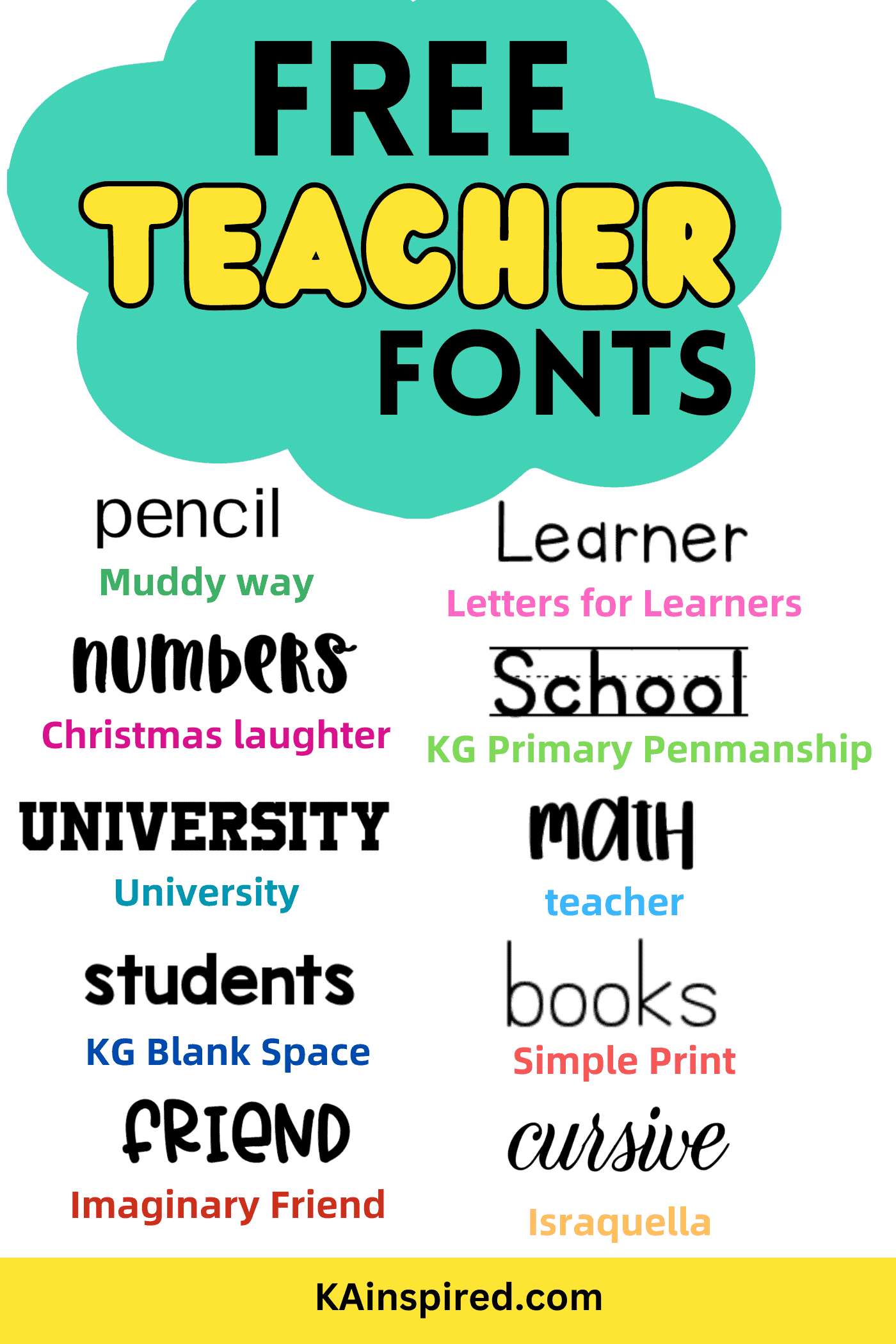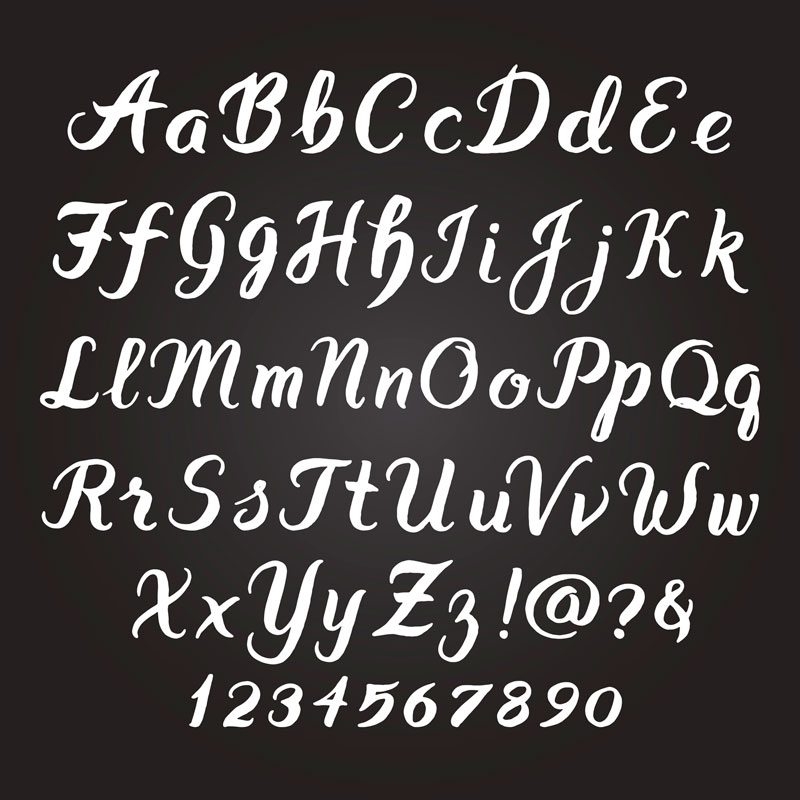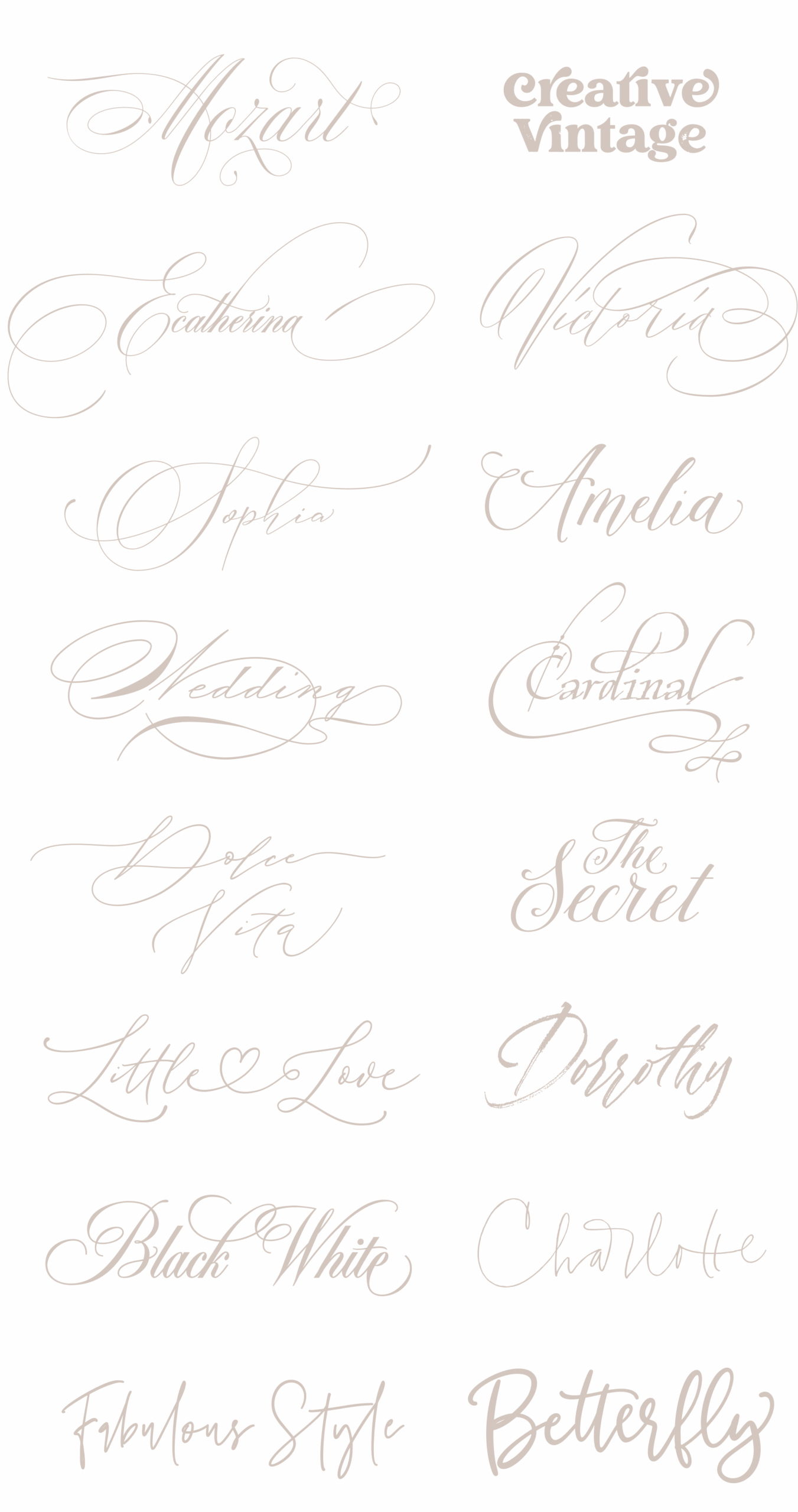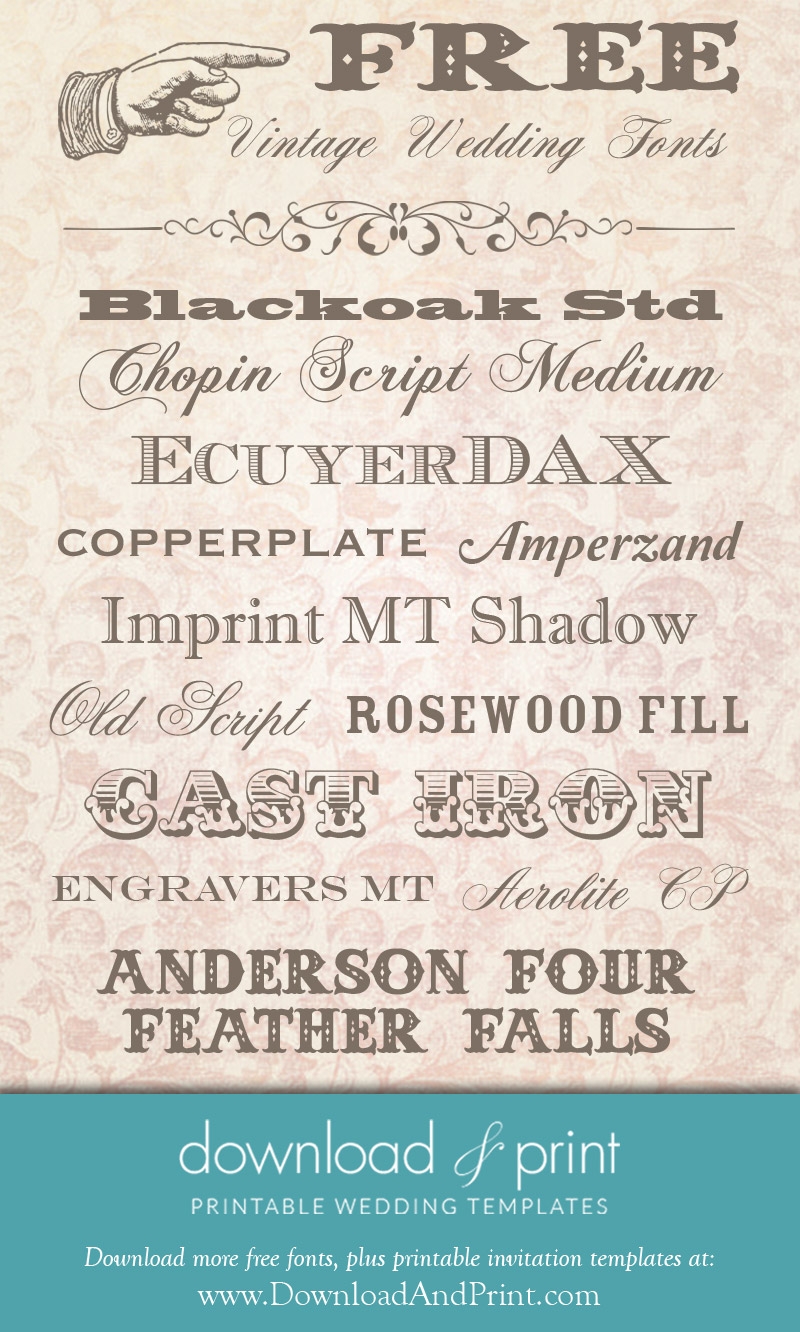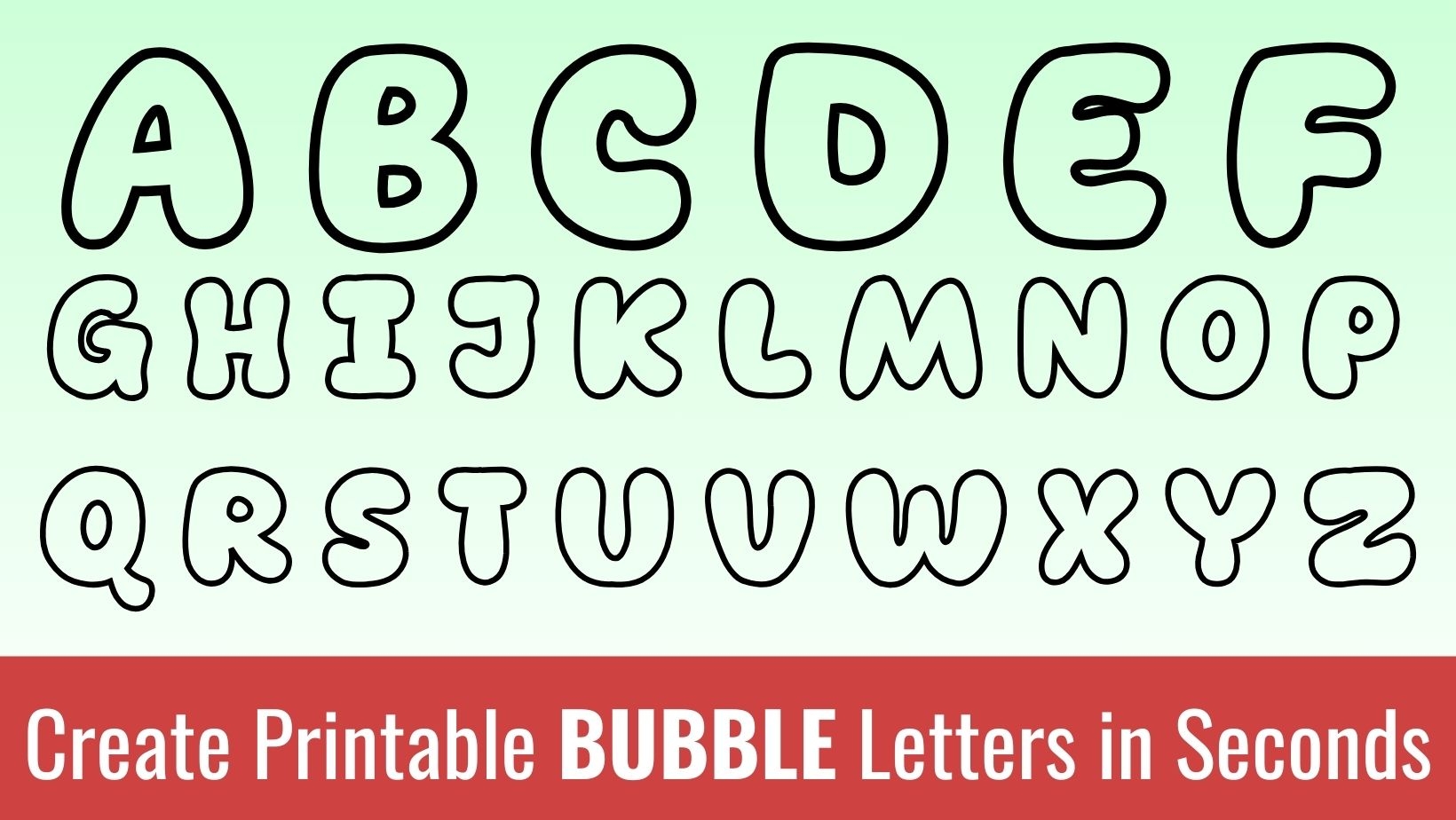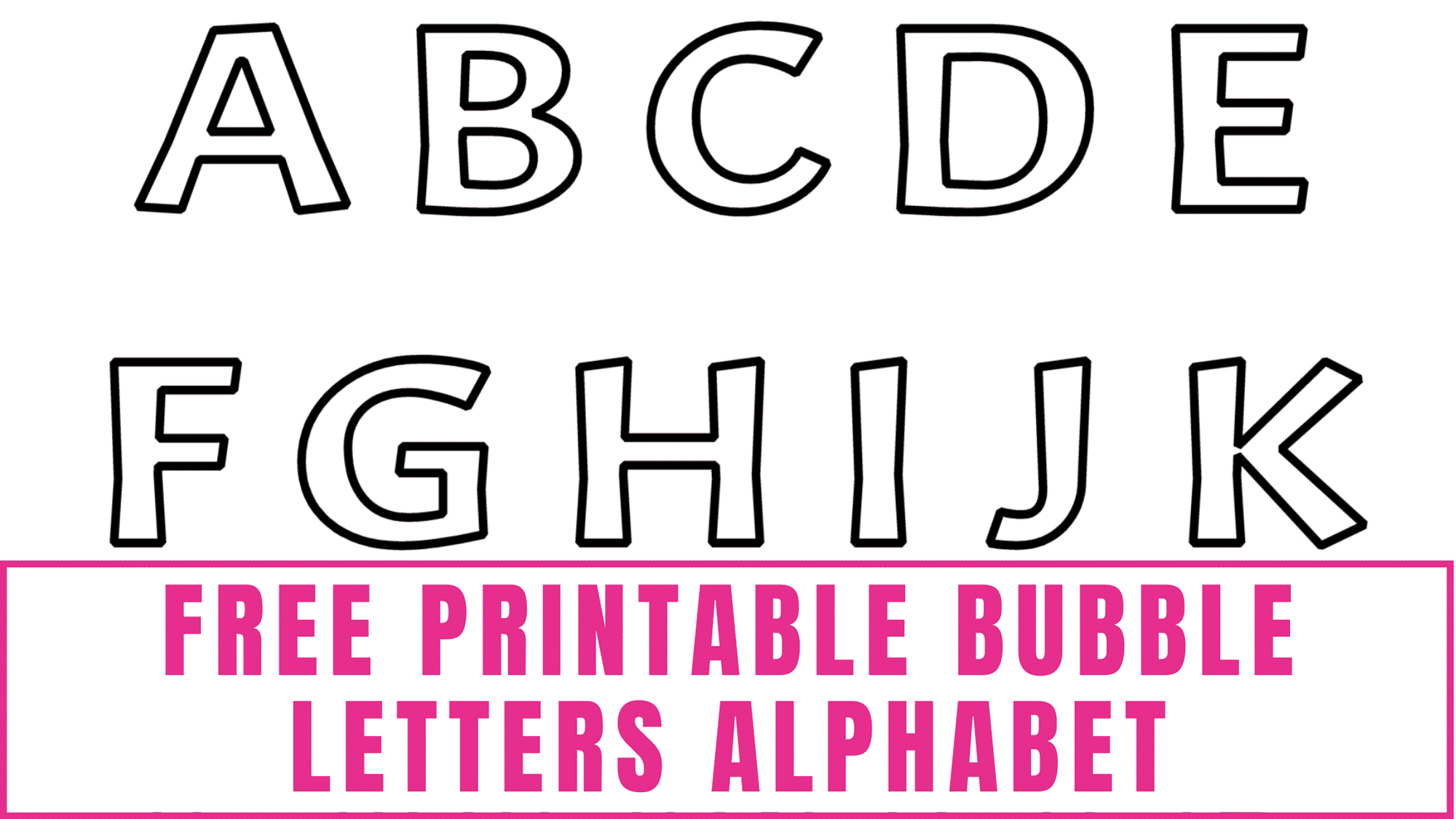
Are you looking for some fresh, new fonts to spice up your next project? Look no further! We’ve got you covered with our collection of free printable fonts that are sure to make your designs pop.
Whether you’re working on a school project, creating a birthday card, or designing a flyer for an event, having the right font can make all the difference. With our selection of free printable fonts, you can easily find the perfect style to suit your needs.
From elegant script fonts to bold and playful options, our free printable fonts offer a wide range of choices to suit any occasion. Whether you prefer a classic look or something more modern, you’ll find just what you need in our collection.
Don’t settle for boring fonts that don’t reflect your unique style. Explore our collection of free printable fonts today and discover the perfect options to take your designs to the next level. With so many choices available, you’re sure to find the perfect font for any project.
Elevate your designs with our free printable fonts and give your projects the creative edge they deserve. Download your favorites today and start adding a personal touch to all your creations!